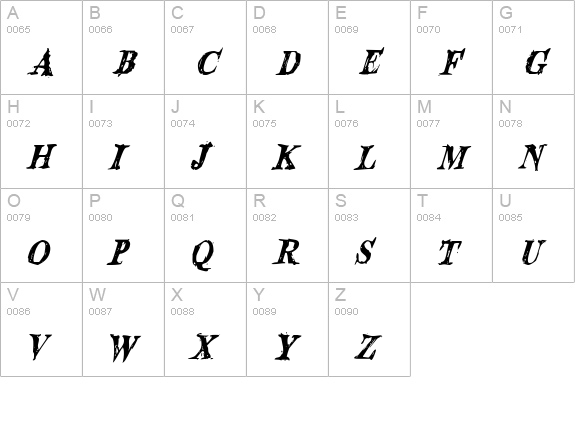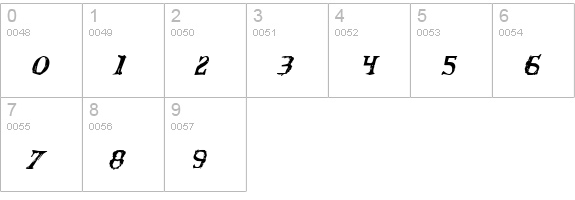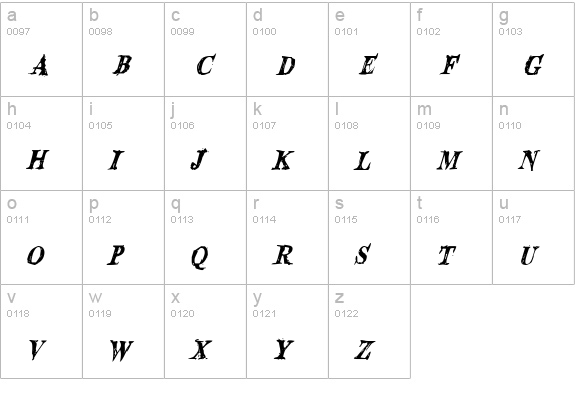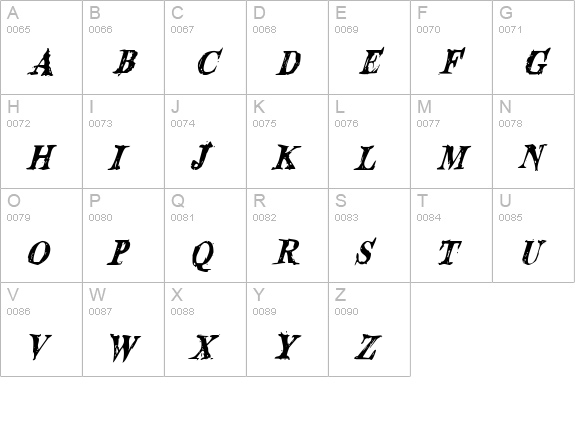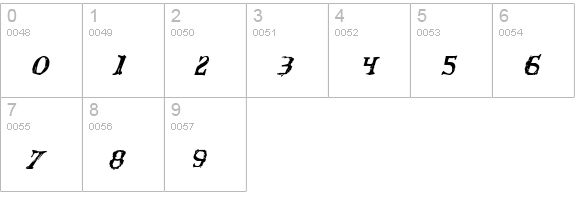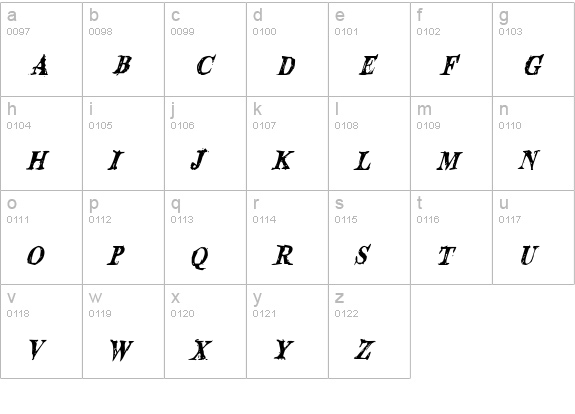
Blood Crow Condensed Italic is a distinctive, condensed-width, italic variant in the Blood typeface family \xE2\x80\x94 well suited to design and typography projects.
Introducing the striking and dynamic Blood Crow Condensed Italic font. With its sleek and modern design, this typeface exudes a sense of power and sophistication. The italicized style adds a touch of elegance and flair to any project. What sets Blood Crow Condensed Italic font apart is not only its bold appearance but also its versatility. Whether you're creating a logo, poster, or website design, this font is sure to make a statement. Its condensed form allows for efficient use of space while maintaining readability and impact. Best of all, Blood Crow Condensed Italic font is available for free download at FontsMarket.com. You can easily access this high-quality font and use it in your projects without any cost. Don't miss out on this opportunity to enhance your designs with the bold and stylish Blood Crow Condensed Italic font.